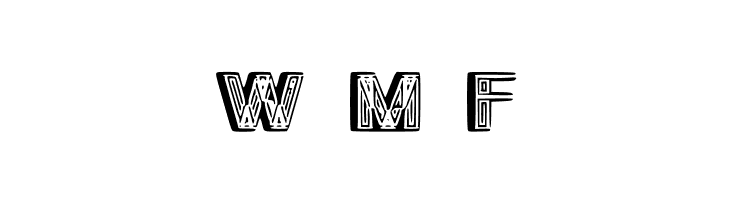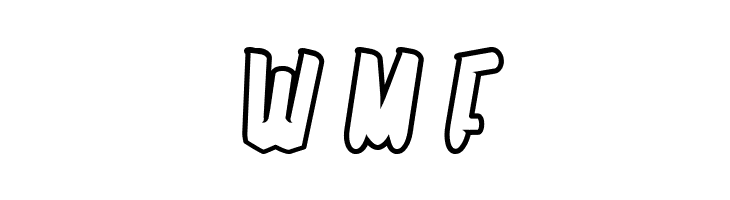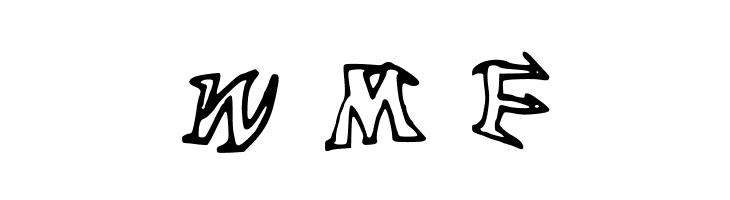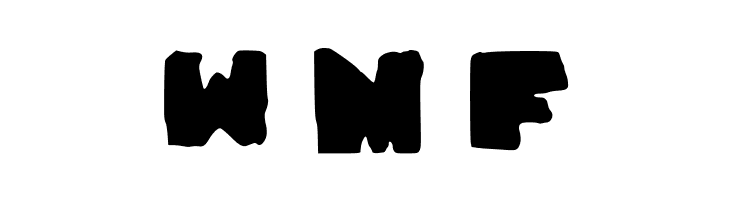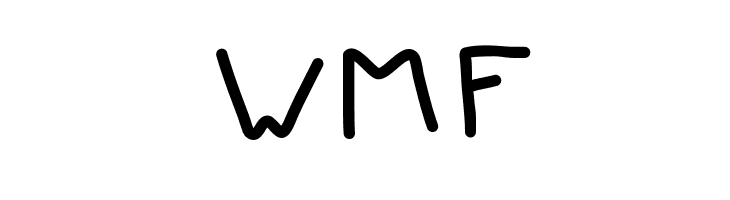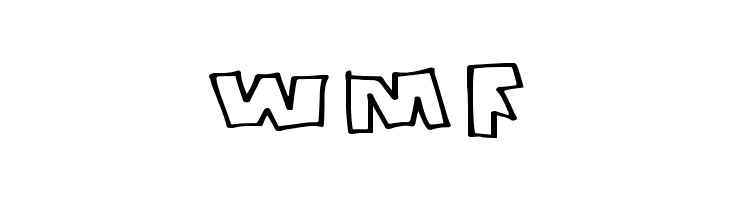
A bold, textured font with an urban, graffiti-inspired style.
A bold, graffiti-inspired font with a playful, artistic style.
A bold, angular font with a graffiti-inspired, edgy style.
A bold, graffiti-inspired font with blocky, angular characters and a strong urban aesthetic.
A bold, distressed font with a comic book and graffiti-inspired style.
A bold, playful font with a cartoonish, graffiti-like style.
A decorative, edgy font with sharp, angular lines and a graffiti-like style.
A bold, dripping font with a graffiti-inspired style.
A bold, dripping font with a rebellious and edgy style.
A bold, edgy graffiti-style font with sharp angles and dynamic forms.
A bold, graffiti-inspired font with sharp, angular strokes and dynamic style.
A bold, graffiti-inspired font with sharp, angular lines and a rebellious aesthetic.
A bold, hand-drawn font with a graffiti-like texture and playful style.
A bold, geometric display typeface with a modern and edgy style.
A bold, distressed font with a rugged, graffiti-like style.
A raw, edgy font with a hand-drawn, graffiti-like style.
A playful, graffiti-inspired outline font with a bold and artistic style.
A decorative font with intricate patterns and bold strokes, inspired by traditional Japanese art and modern graffiti.
A bold, playful font with a hand-drawn, graffiti-like style.
A bold, playful font with a 3D effect and thick outlines, perfect for dynamic displays.
A bold, textured font with a distressed, graffiti-like style.
A bold, textured font with a playful, graffiti-like style.